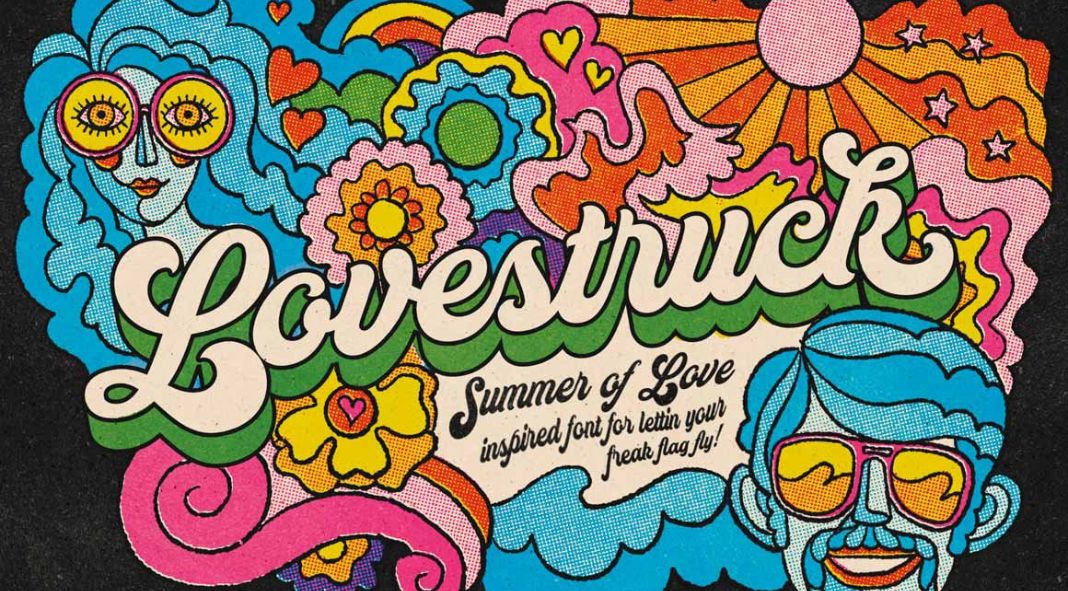
Check out Lovestruck, a retro script font inspired by the funky lettering of the 1960s and 1970s.
Lovestruck is a script font that exudes vintage magic and transports you back to the psychedelic culture of the 60s and 70s. Combining luxurious Art Nouveau motifs with flamboyant flourishes, this unique typeface captures all the bohemian charm of yesteryear. Let Lovestruck whisk you away on a journey down memory lane!
RetroSupply Co. created this font using OpenType features so that you don’t have to waste any time adjusting tracking values or kerning pairs. It automatically adjusts to fit your design layout perfectly, taking the hassle out of typography!